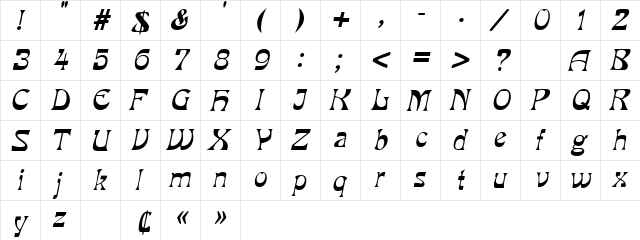
VanVeen Italic
Design Context for VanVeen Typeface
VanVeen takes a measured approach to typography — its balanced proportions and neutral character make it a reliable workhorse for both digital and print work. Its italic angle brings a sense of urgency and motion to the letterforms.
Pro Tip: Try VanVeen for annotation and caption copy alongside an upright companion — the contrast in angle creates a dynamic but ordered typographic system.